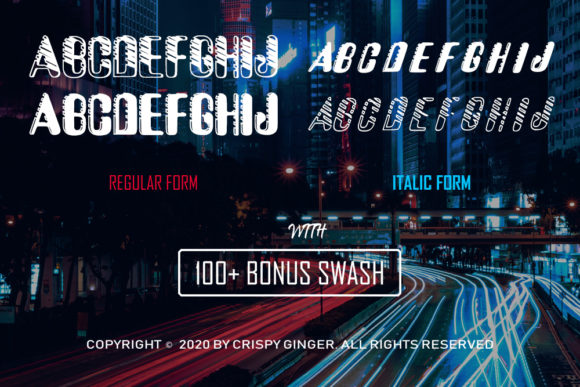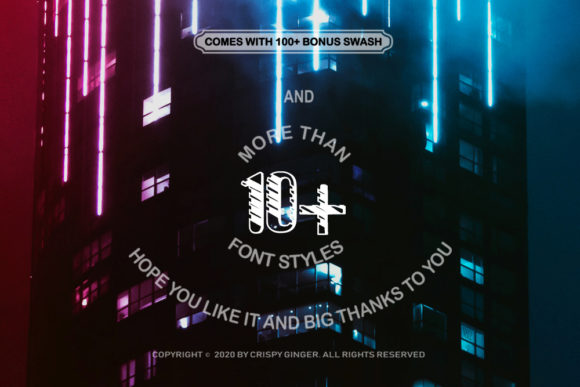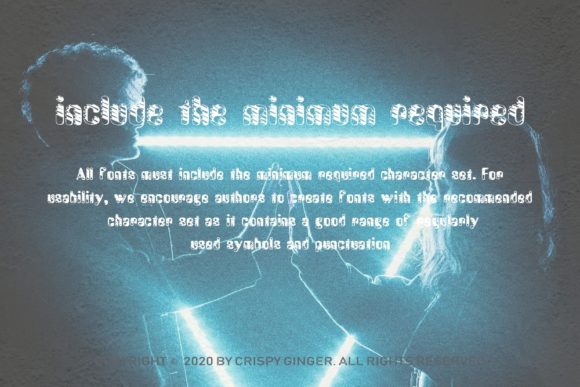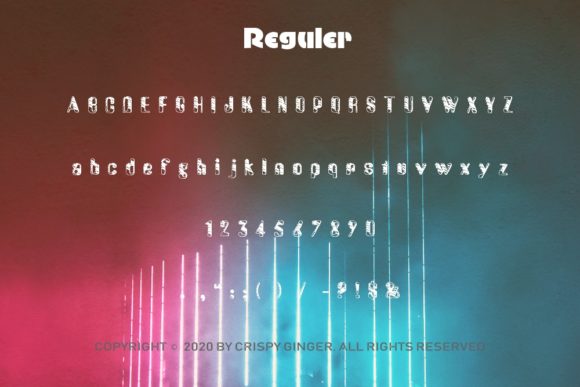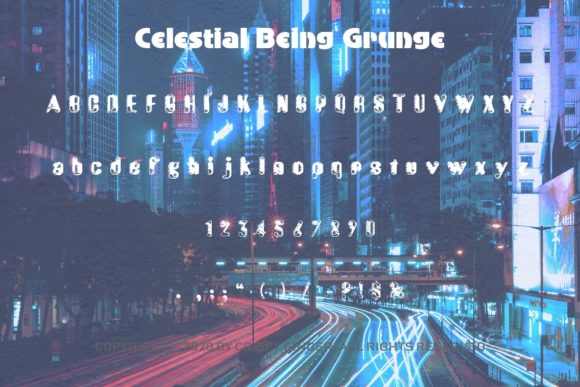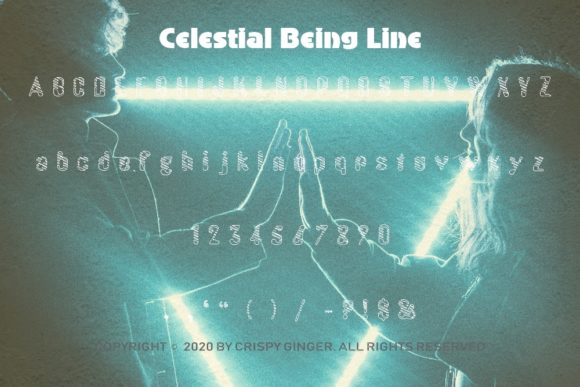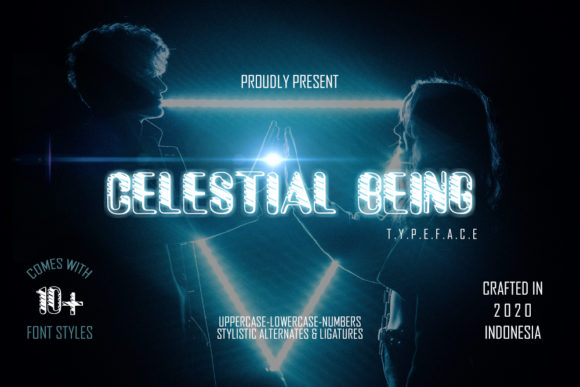
Introducing Celestial Being Font: Elevate Your Designs with a Touch of Heavenly Elegance
Are you tired of using the same old fonts for your designs? Look no further! Celestial Being Font is here to revolutionize your creative projects with its unique and captivating style. This stunning display font features 13 distinct styles and an impressive 150 swashes, giving you the tools to create truly show-stopping designs that stand out from the crowd.
What Makes Celestial Being Font So Special?
Celestial Being Font is not just any ordinary font. Its exceptional versatility and wide range of styles make it an ideal choice for designers and crafters looking to add a touch of magic to their work. With 13 styles to choose from, you can experiment with different combinations to achieve the perfect look for your project. Whether you’re working on a logo, a poster, or a social media graphic, Celestial Being Font is sure to impress.
Unleash Your Creativity with 150 Swashes
The real magic of Celestial Being Font lies in its incredible 150 swashes. These beautiful, intricate details can be used to add a personal touch to your designs, making them truly one-of-a-kind. From elegant flourishes to playful accents, the swashes in Celestial Being Font give you the freedom to get creative and bring your ideas to life.
Celestial Being Font is a dream come true for designers and crafters alike. Its playfulness and elegance make it an excellent choice for a wide range of projects, from handmade crafts to professional design work. Whether you’re creating invitations, greeting cards, or digital graphics, Celestial Being Font is the perfect tool to help you achieve your desired look.
Why Choose Celestial Being Font?
- Unique and Original: Stand out from the crowd with a font that is truly one-of-a-kind.
- Highly Versatile: With 13 styles and 150 swashes, the creative possibilities are endless.
- Elegant and Playful: Perfect for adding a touch of sophistication or whimsy to your designs.
Tips for Using Celestial Being Font
To get the most out of Celestial Being Font, here are a few tips to keep in mind:
- Experiment with Different Styles: Don’t be afraid to try out different combinations of styles and swashes to find the perfect look for your project.
- Use Swashes Sparingly: While the swashes in Celestial Being Font are beautiful, it’s best to use them sparingly to avoid overwhelming your design.
- Pair with Other Fonts: Celestial Being Font pairs well with a variety of other fonts, so don’t be afraid to get creative with your font combinations.